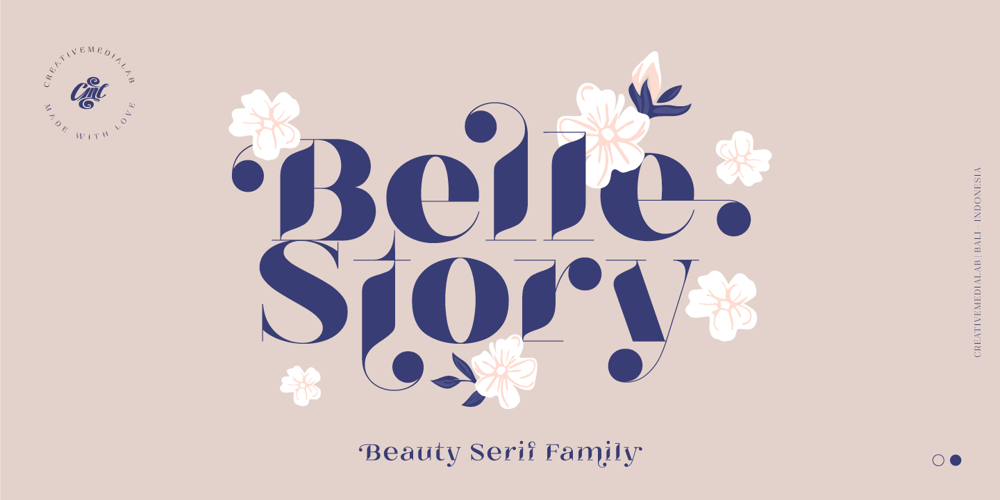
Belle Story Font Family was designed by Kadek Mahardika and published by Creativemedialab. Belle Story contains 21 styles and family package options. Belle Story is a beauty serif family.This hi-contrast display font Consists of 2 styles Display & Regular and each style has 10 weights from thin to black with fine lines and smooth curves to make this font perfect for luxury, classy, high-end branding, logo, and many more.Belle Story also includes a Variable style as well as multilingual support, numbers, and currency symbols, and dozens of alternates.